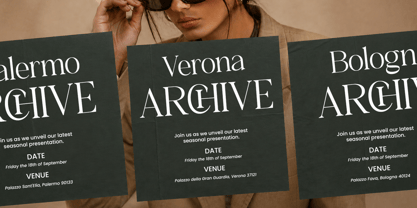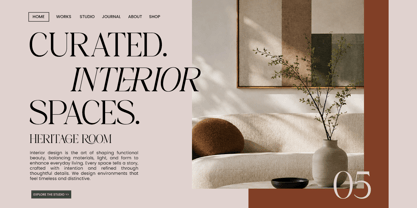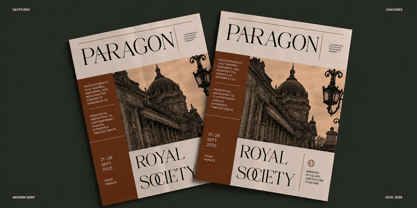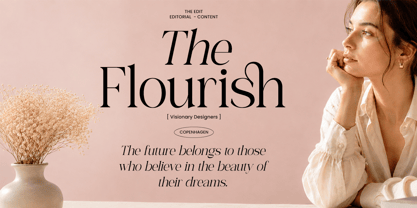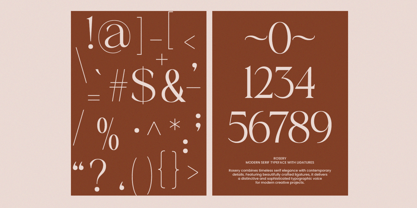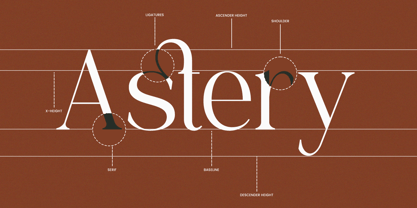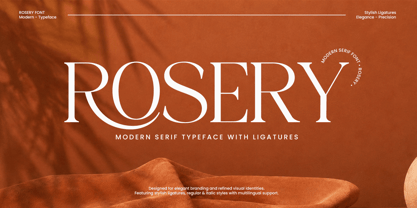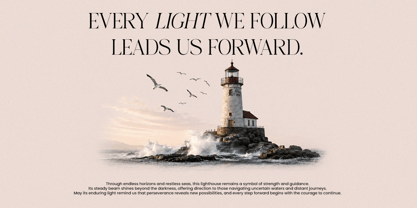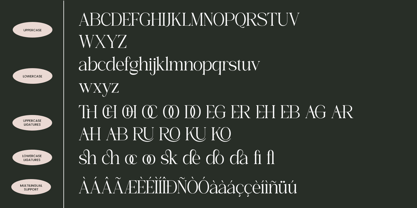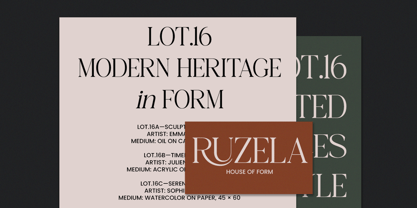
Rosery
von Font Liner
Die Schriftfamilie Rosery wurde von Ghina Luthfiarieska entworfen und von Font Liner veröffentlicht. Rosery enthält 2 Stile und Familienpaketoptionen. Mehr über diese Familie
Rosery is a refined modern serif font that blends timeless elegance with expressive ligatures, creating a luxurious and sophisticated look for premium branding. Designed with graceful letterforms, high contrast strokes, and stylish alternates, Rosery delivers an effortlessly fashionable aesthetic that elevates every design. Whether you're crafting upscale logos, editorial layouts, or elegant packaging, this typeface brings a perfect balance of classic beauty and contemporary sophistication.
Inspired by luxury fashion magazines and high-end visual identities, Rosery is ideal for designers seeking a serif font with distinctive personality and exceptional readability. Its elegant ligatures and carefully crafted details create seamless typography that feels both artistic and professional, making it perfect for modern brands that value refinement and exclusivity.
• Regular and Italic Style
• Stylistic Ligatures
• Uppercase and Lowercase
• Number, Symbol, and Punctuation
• Multi Language Support
Designer: Ghina Luthfiarieska
Foundry: Font Liner